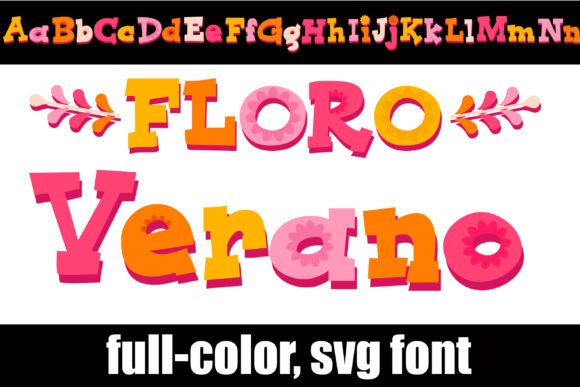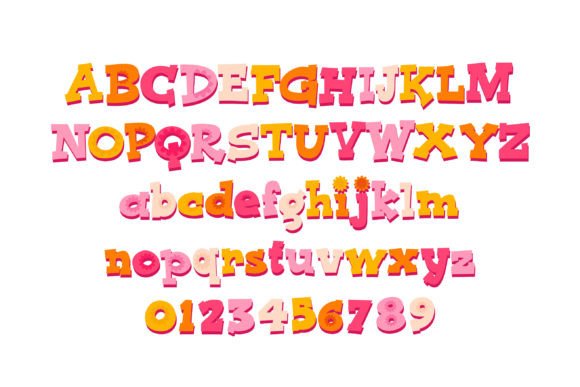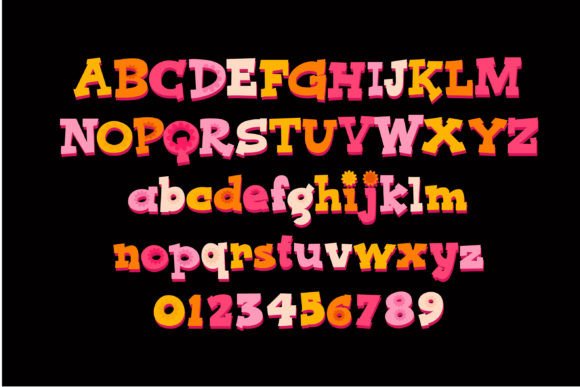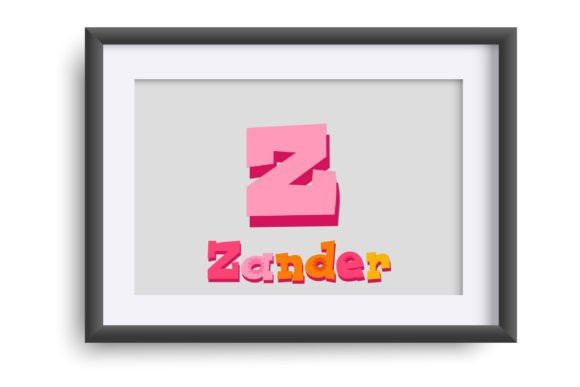
Floro Verano Font
About the Floro Verano Font
Unleash your creativity with Floro Verano Font, a versatile font perfect for a wide range of applications. This full-color font features a chunky serif font accented in flowers with a very hot, summer color palette. There is an alt case w/ additional colors you can access through your system or Silhouette’s glyph map. This font works best for titles, displays, posters and more. Please note color fonts will show as black in non compatible programs. This font type is compatible with Silhouette Studio.